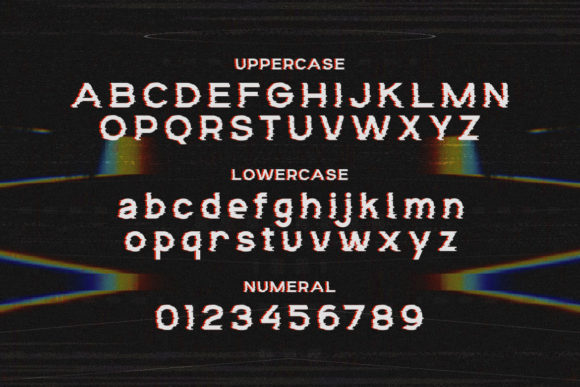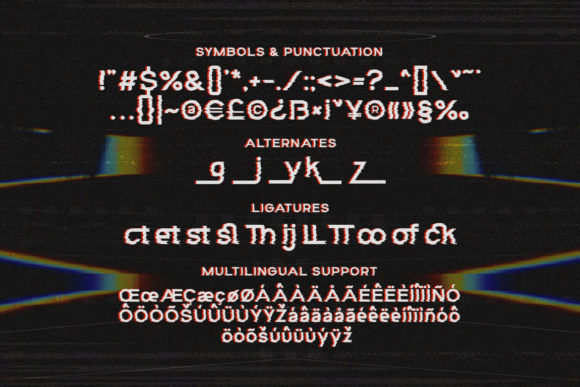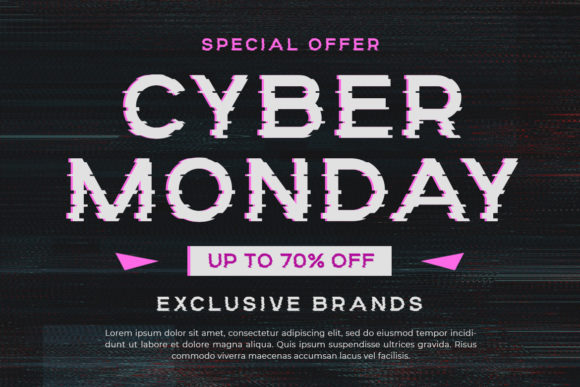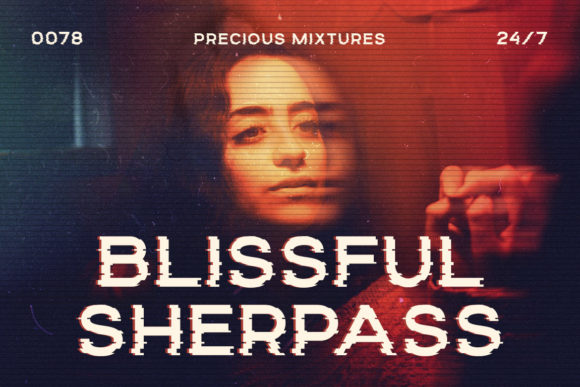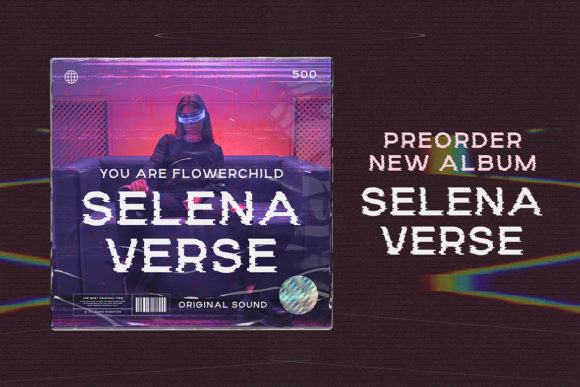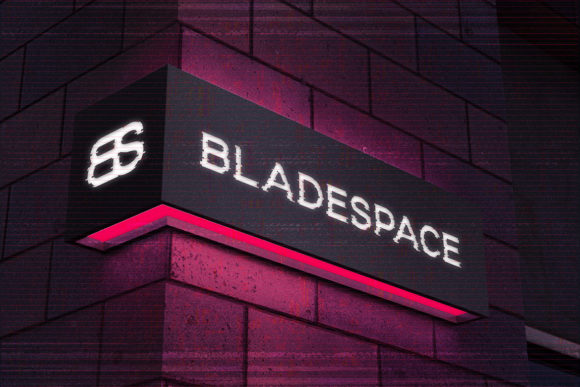
Avaluna Font: Elevate Your Designs with a Modern Digital Glitching Effect
In the realm of digital design, typography plays a crucial role in conveying the aesthetic and tone of a project. For those seeking to add an edgy, modern twist to their creations, the Avaluna font is an exceptional choice. This eccentric typeface is specifically designed to emulate an artistic digital glitching effect, making it perfect for artists, designers, and crafters looking to infuse their work with a contemporary ambiance.
The Origins and Significance of Avaluna Font
Avaluna font draws inspiration from an old art form known for its black history and association with digital errors. The glitch effect, which Avaluna embodies, has been a staple in digital art for representing flaws or errors in images. Over time, this effect has evolved to become a significant icon and tool for artists, symbolizing a break from traditional norms and an embrace of digital imperfection.
Characteristics of Avaluna Font
Avaluna is not just any typeface; it’s a statement piece. Its design is centered around creating a visually striking glitch effect that can instantly elevate the aesthetic of any digital project. Here are some key characteristics that make Avaluna stand out:
- Eccentric Design: Avaluna boasts a unique and artistic design that sets it apart from traditional typefaces.
- Digital Glitching Effect: The font’s glitch effect adds a modern and dynamic feel to any text, making it perfect for digital artworks.
- Versatility: Whether it’s for branding, game titles, website headers, or any other design project, Avaluna can be used in a multitude of applications.
- Contemporary Ambiance: The font’s modern aesthetic can give your projects a fresh and contemporary look.
Applications of Avaluna Font
The versatility of Avaluna font makes it suitable for a wide range of applications. Here are some of the areas where Avaluna can make a significant impact:
- Branding: Use Avaluna to create memorable and impactful brand names that stand out.
- Game Title Design: The glitch effect of Avaluna can add a futuristic and appealing look to game titles.
- Web Design: Add a modern touch to your website headers, banners, or any textual content.
- Artworks: Perfect for artists looking to add a digital edge to their artworks.
- Design Projects: From posters and flyers to digital illustrations, Avaluna can be a valuable addition to your design toolkit.
Why Choose Avaluna Font?
Choosing Avaluna font for your projects comes with several benefits:
- Uniqueness: Stand out from the crowd with a font that offers a fresh and unique aesthetic.
- Expressiveness: Convey a modern and artistic vibe that resonates with digital natives.
Avaluna font is more than just a typeface; it’s a design statement. With its unique digital glitching effect, it offers a modern and artistic twist to any project. Whether you’re a designer, artist, or crafter, Avaluna provides an excellent opportunity to infuse your work with a contemporary and edgy aesthetic. By incorporating Avaluna into your design toolkit, you’re not just choosing a font; you’re embracing a new way to express creativity and visual innovation.